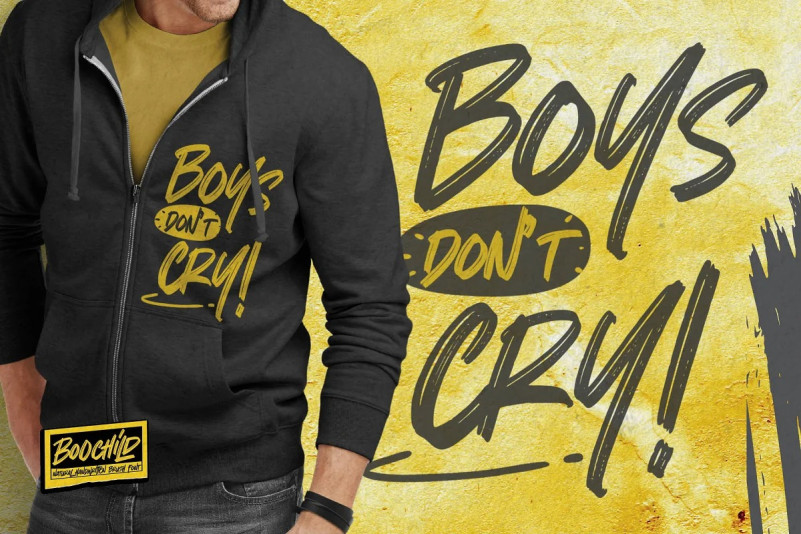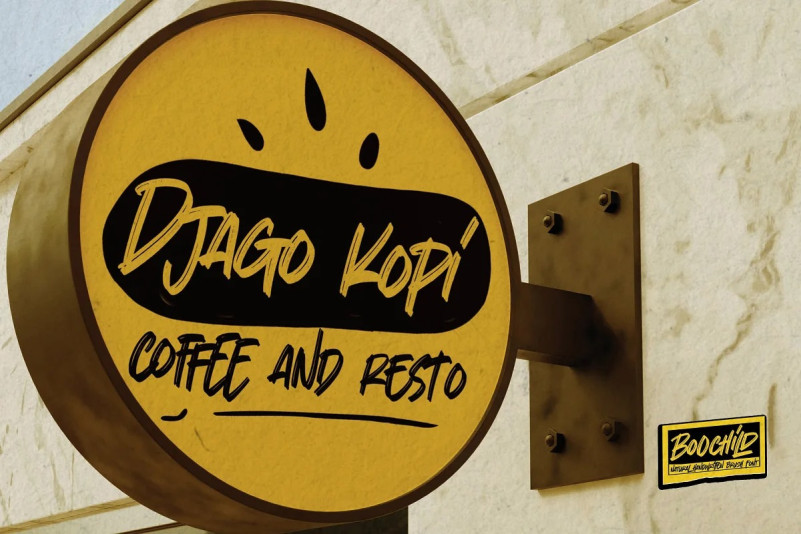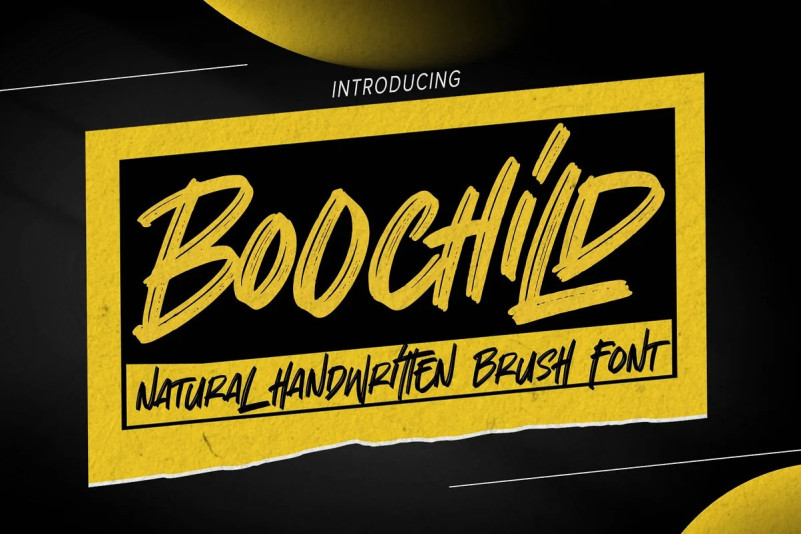
Boochild Font
Boochild – Natural Handwritten Brush Font with a natural style and dramatic movement. Crafted manually with love and passion, This font is great for your next creative project such as logos, printed quotes, invitations, cards, product packaging, headers, Logotype, Letterhead, Poster, Label, and etc.